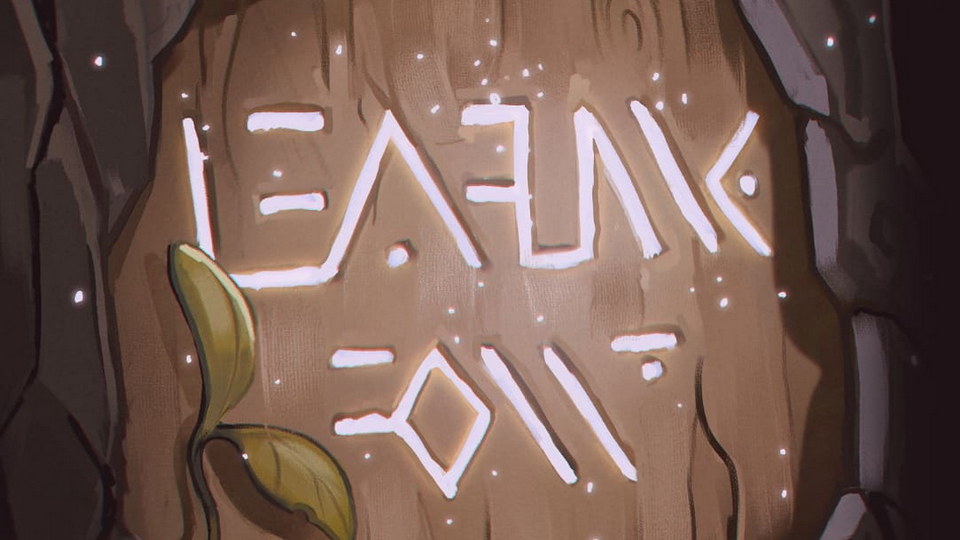
Leafling Font › Fontesk – Download Grátis
Download Leafling font, a unique cryptic handwritten typeface, used by the imaginary folk of the Leaflings. An unique characteristic of the font is it’s seamless letter structure, allowing you to craft shapes with characters.